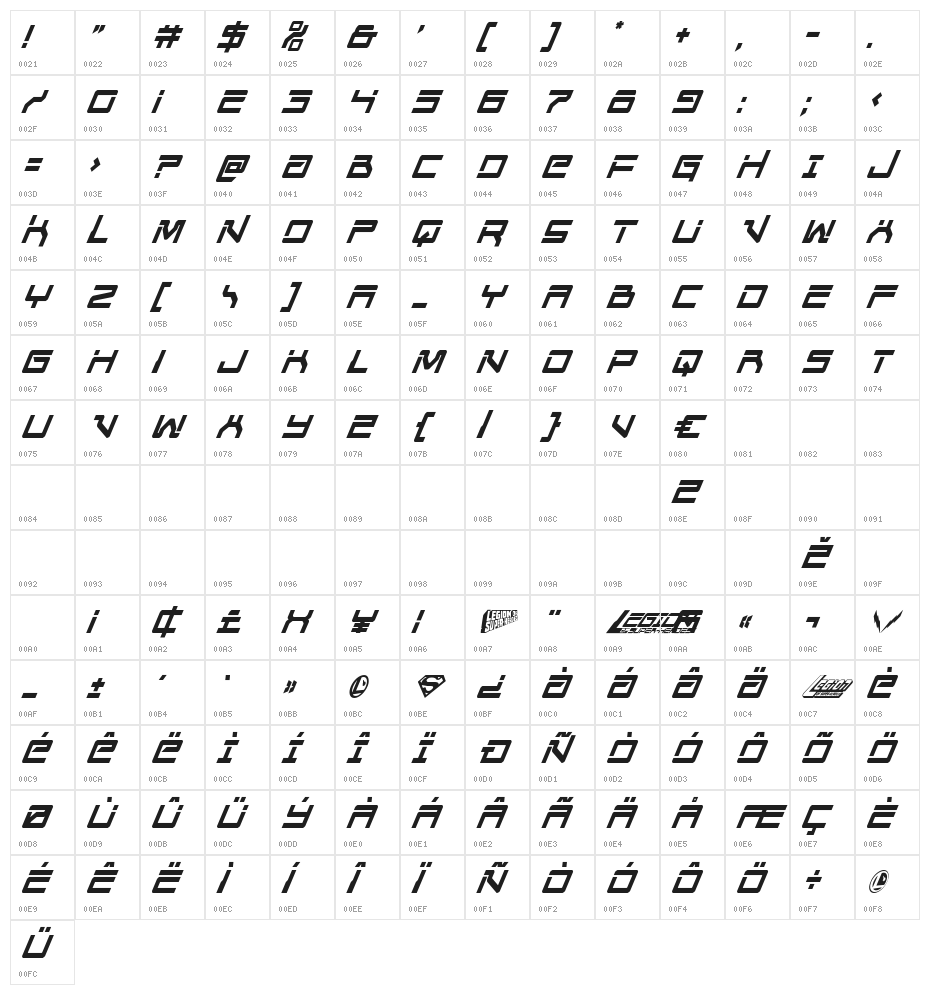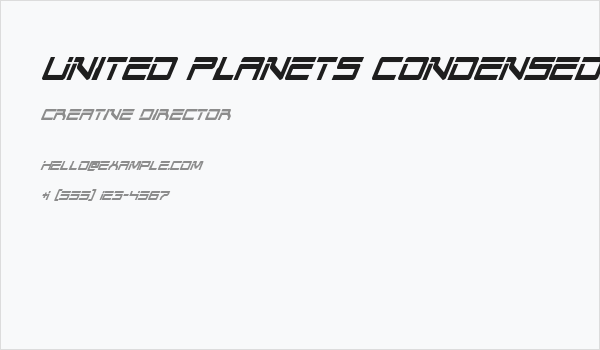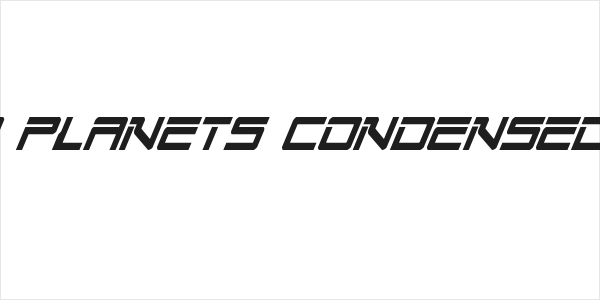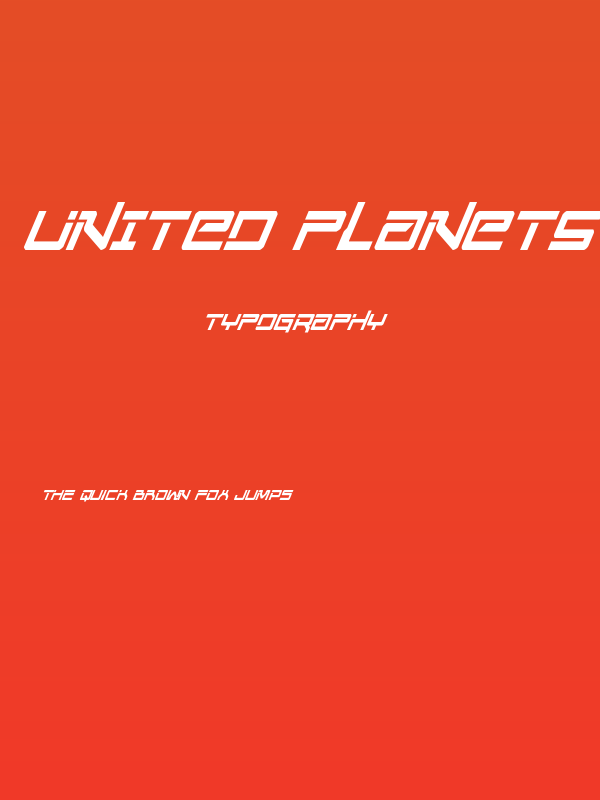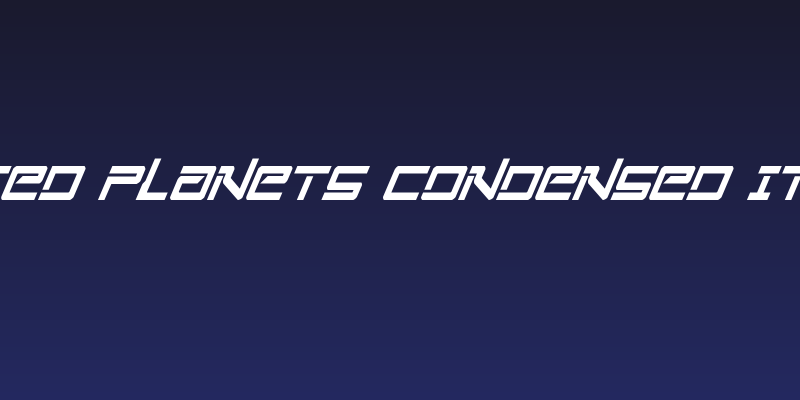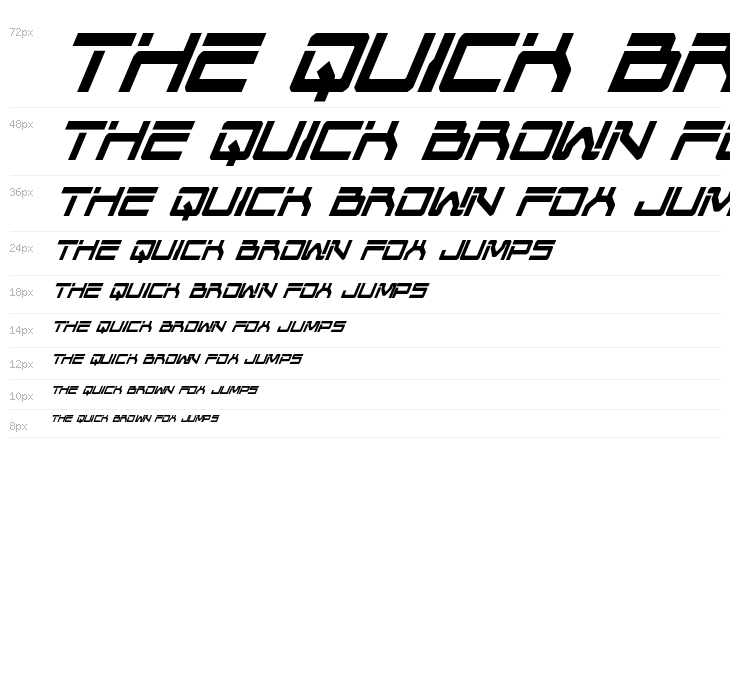
United Planets Condensed Italic Font
United Planets Condensed Italic Description
This font features a futuristic and angular design, characterized by its sharp edges and geometric shapes. The letters are condensed and italicized, giving a sense of motion and speed. The uppercase and lowercase letters maintain a consistent style, with a slight slant that enhances the dynamic appearance. The numbers and special characters follow the same design principles, ensuring uniformity across all glyphs. The overall aesthetic is modern and sleek, making it suitable for projects that require a cutting-edge and technological feel.
| Use Case | Headlines, Logos, Display text |
| Proposed Projects | Ideal for sci-fi themed designs, technology branding, video game interfaces, and modern advertising. |